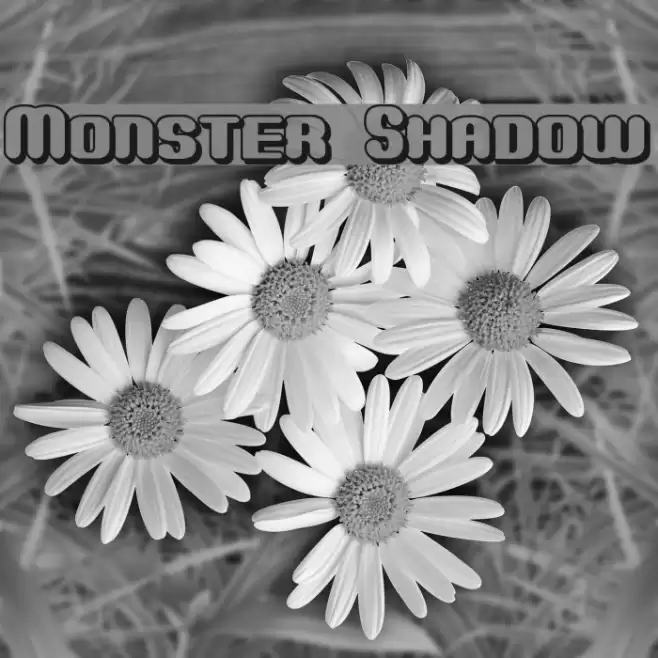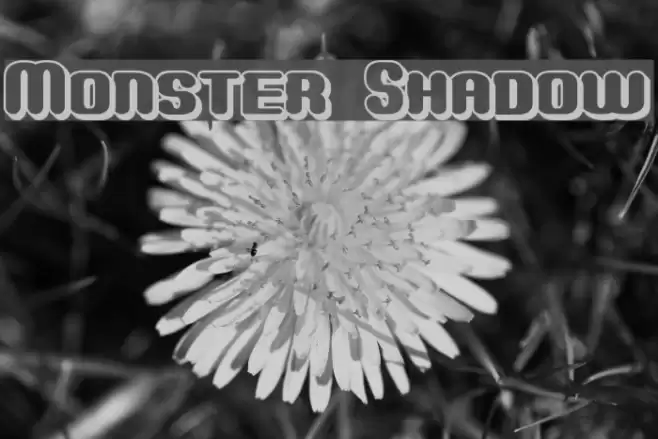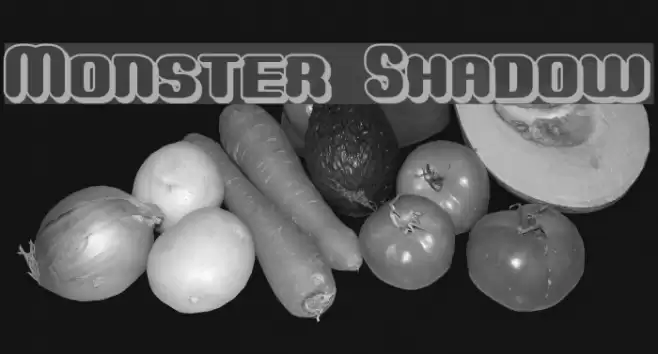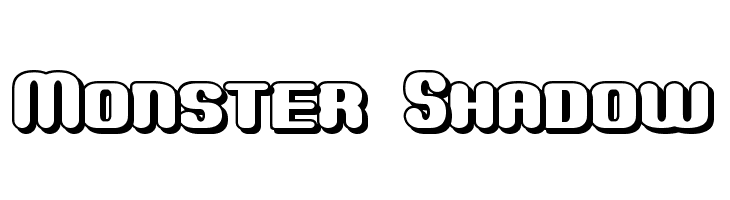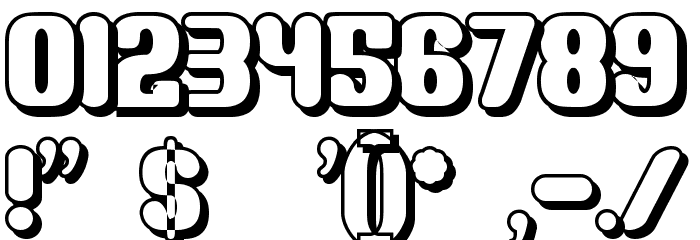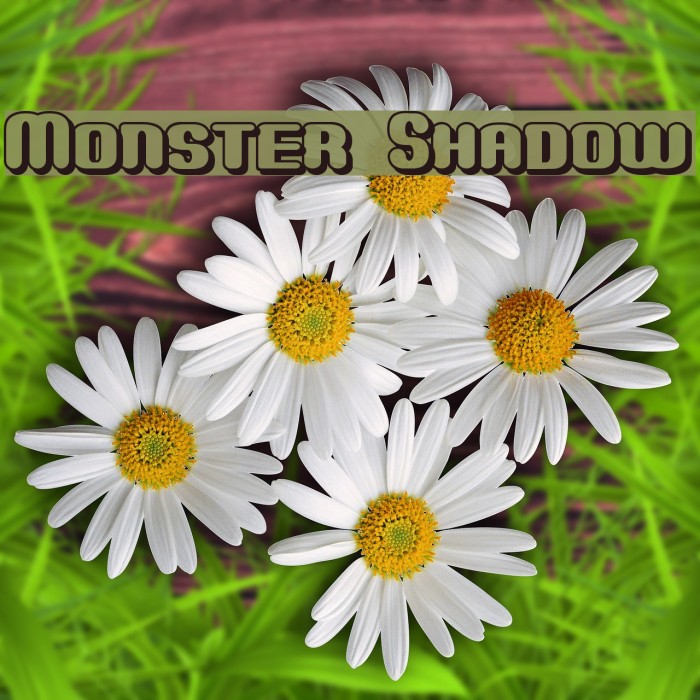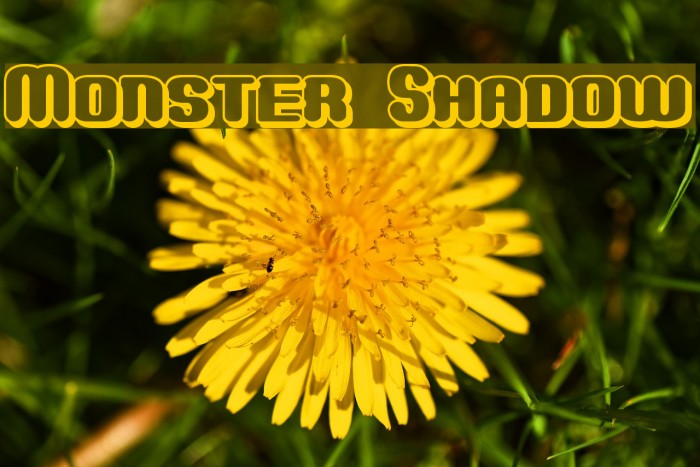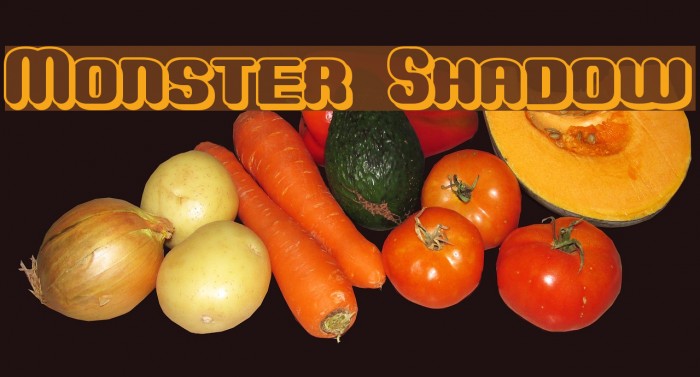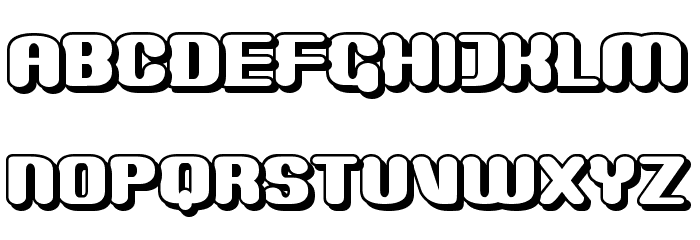
Monster Shadow Font
Monster Shadow Description
This font features a bold, playful design with a distinct shadow effect that gives it a three-dimensional appearance. The characters are rounded and thick, creating a sense of fun and energy. The shadow adds depth, making each letter pop off the page. This style is reminiscent of retro or comic book aesthetics, with a modern twist. The font is highly legible and eye-catching, making it suitable for various creative applications. Its unique style can add a touch of whimsy and boldness to any project.
A bold, playful font with a three-dimensional shadow effect from Crazy fonts.
- Proposed Projects: Ideal for comic books, children's books, posters, and playful branding.
- Overall Style: Playful, Retro